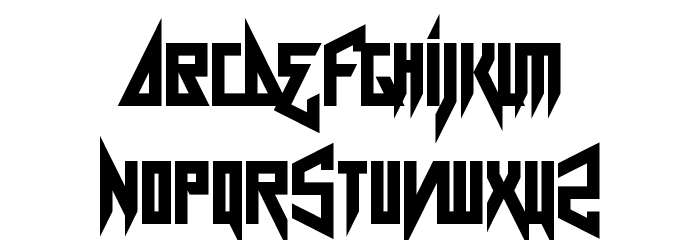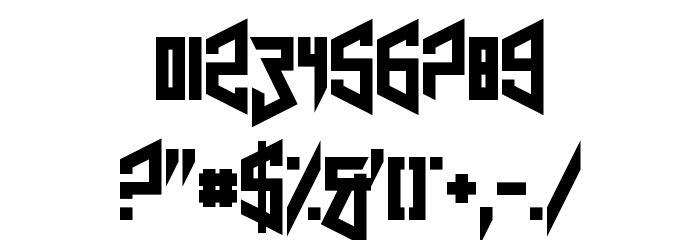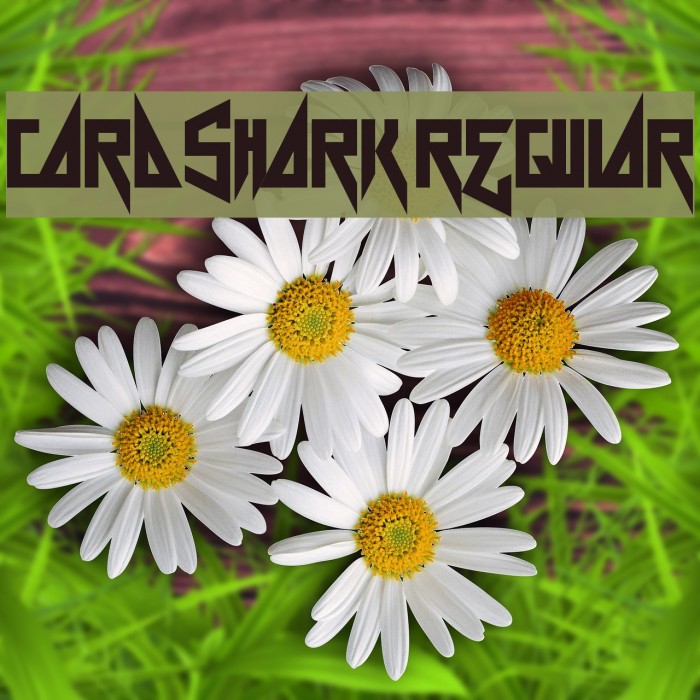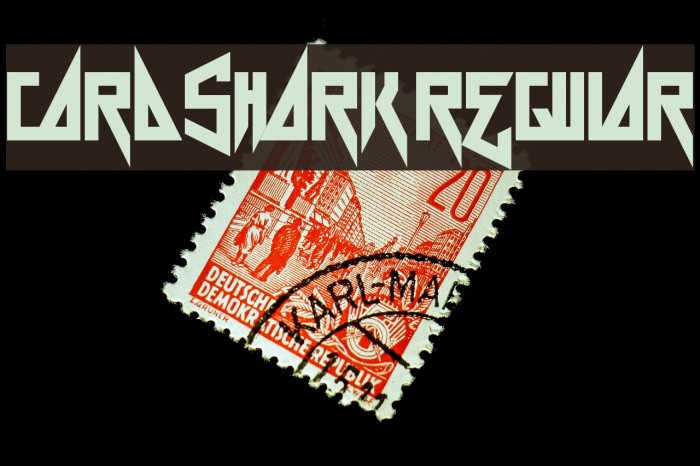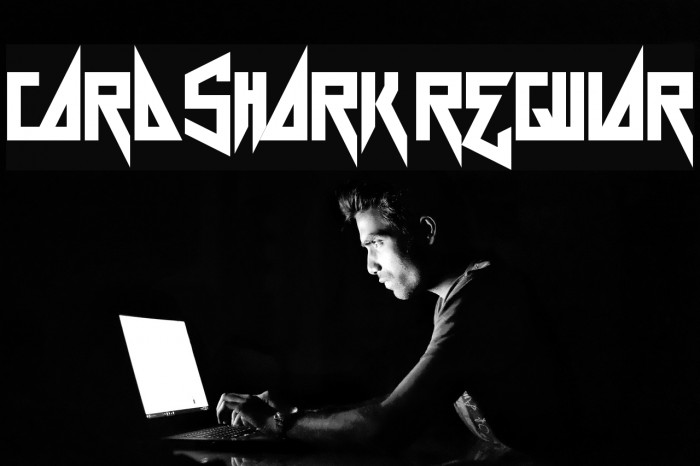
Card Shark Regular Font
This font features a bold, angular design with sharp edges and geometric forms. The characters are highly stylized, giving off a futuristic and edgy vibe. The uppercase and lowercase letters share a similar structure, maintaining consistency across the alphabet. Numbers and special characters are designed to match the overall aesthetic, with a focus on symmetry and sharp angles. The font's unique style makes it stand out, ideal for projects that require a strong visual impact.
A bold, angular font with a futuristic and edgy design.
- Proposed Projects: Ideal for video game titles, sci-fi movie posters, branding for tech companies, and edgy graphic design projects.
- Overall Style: Futuristic, Edgy